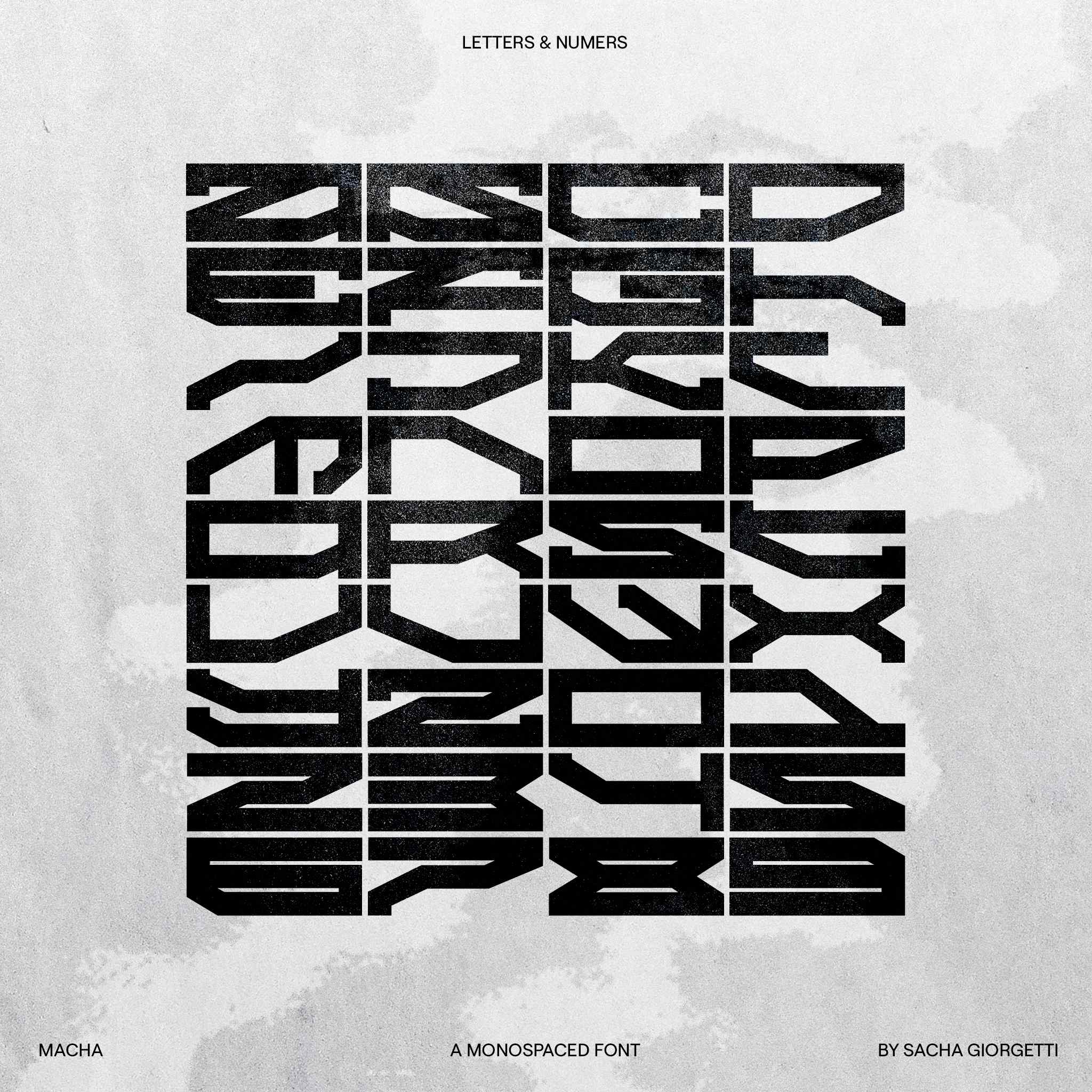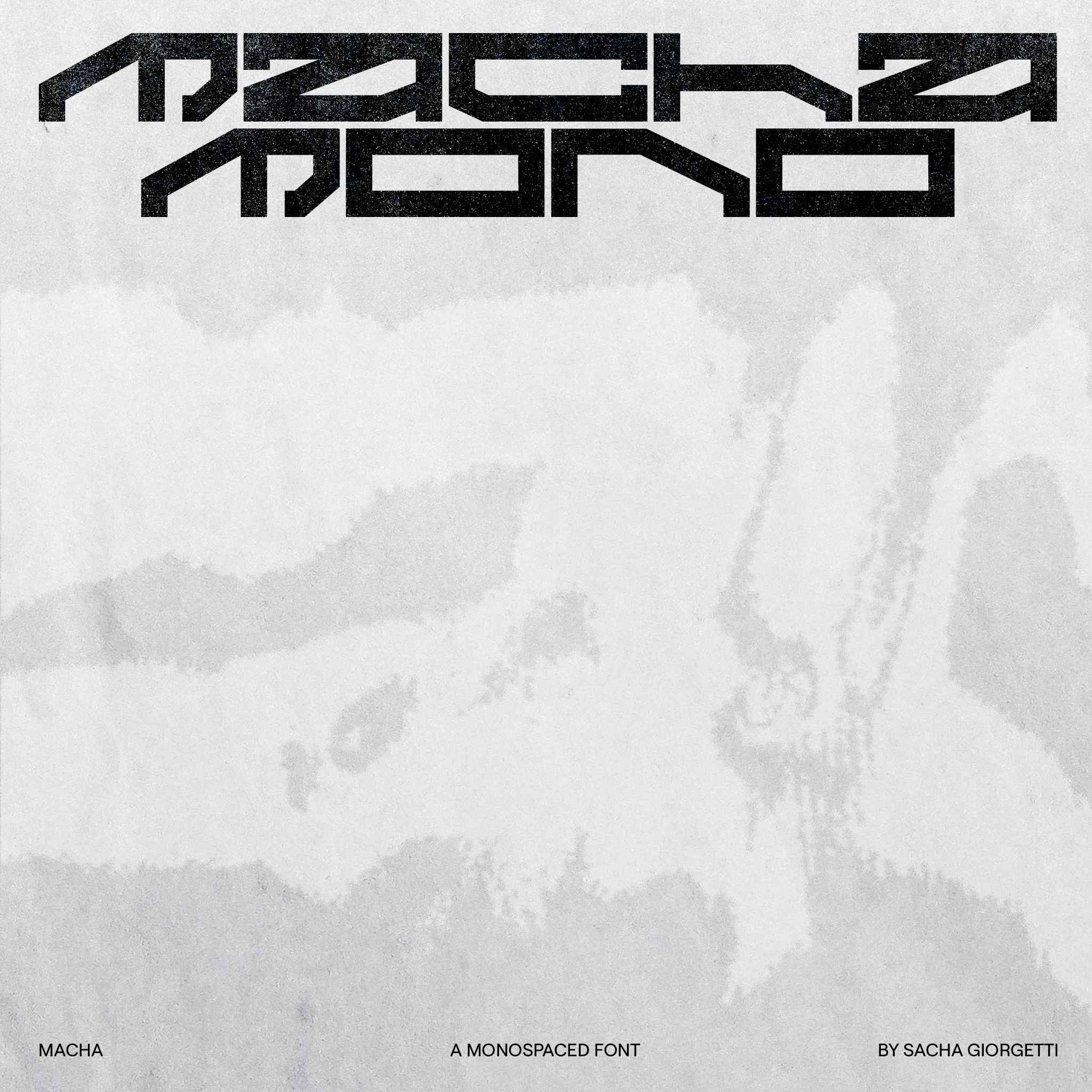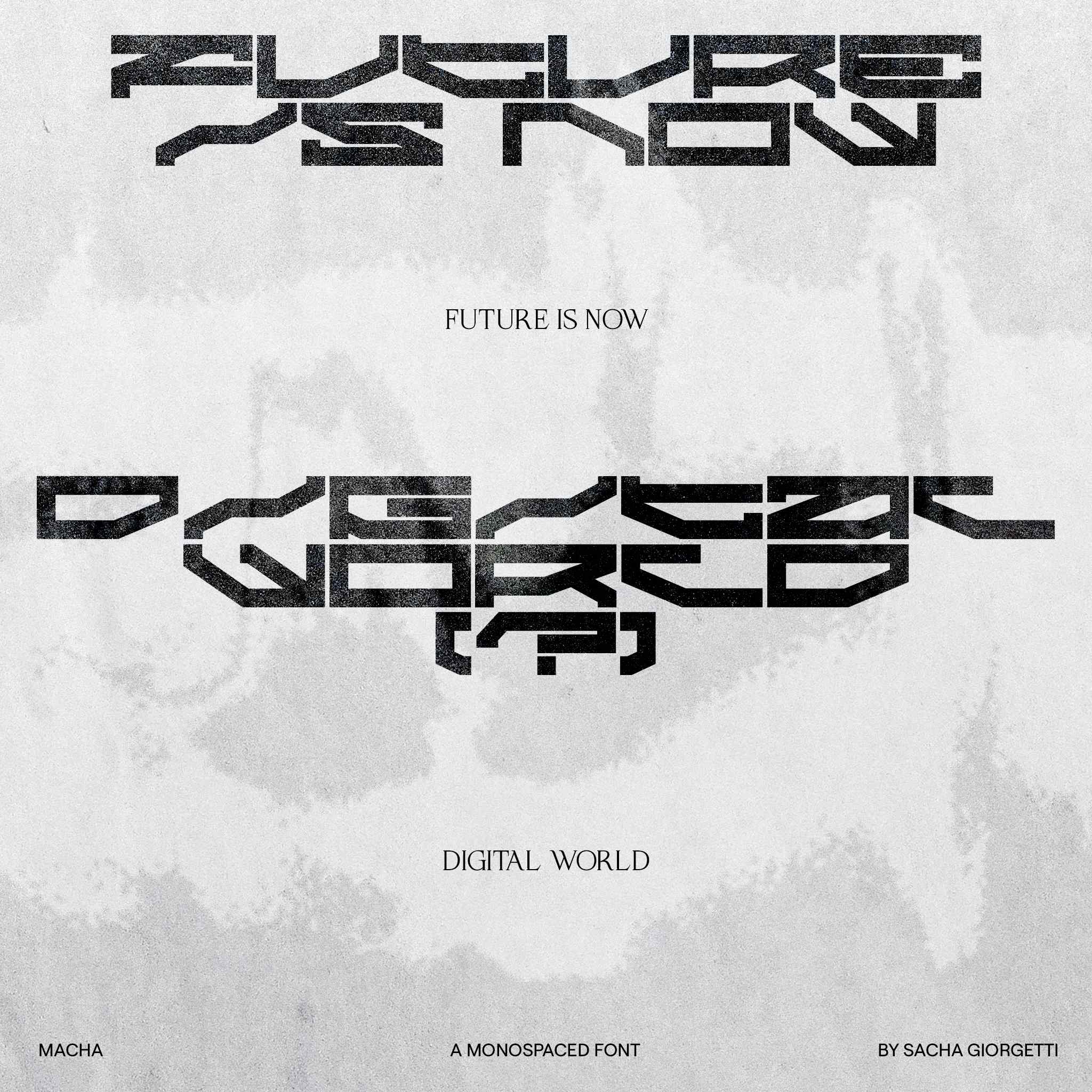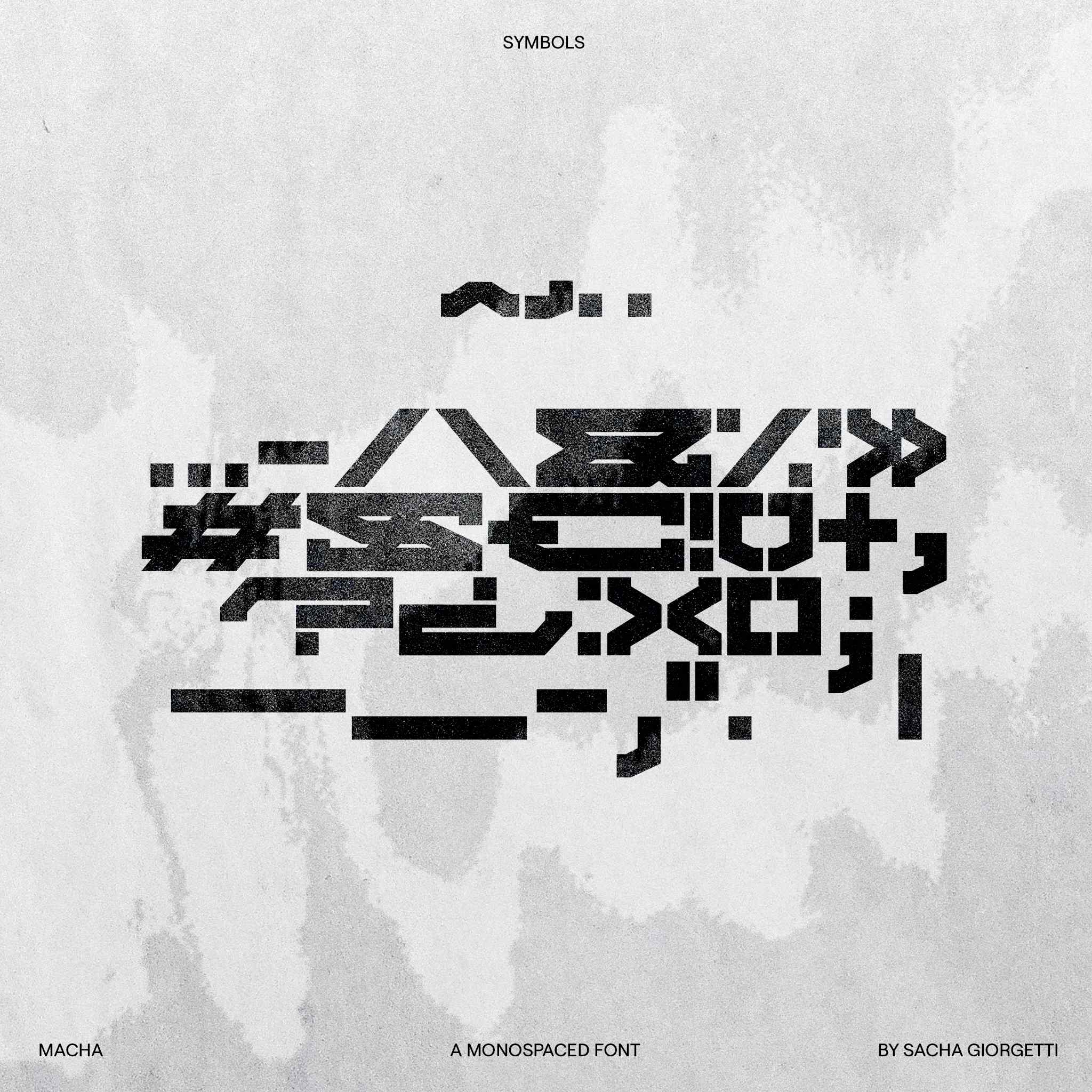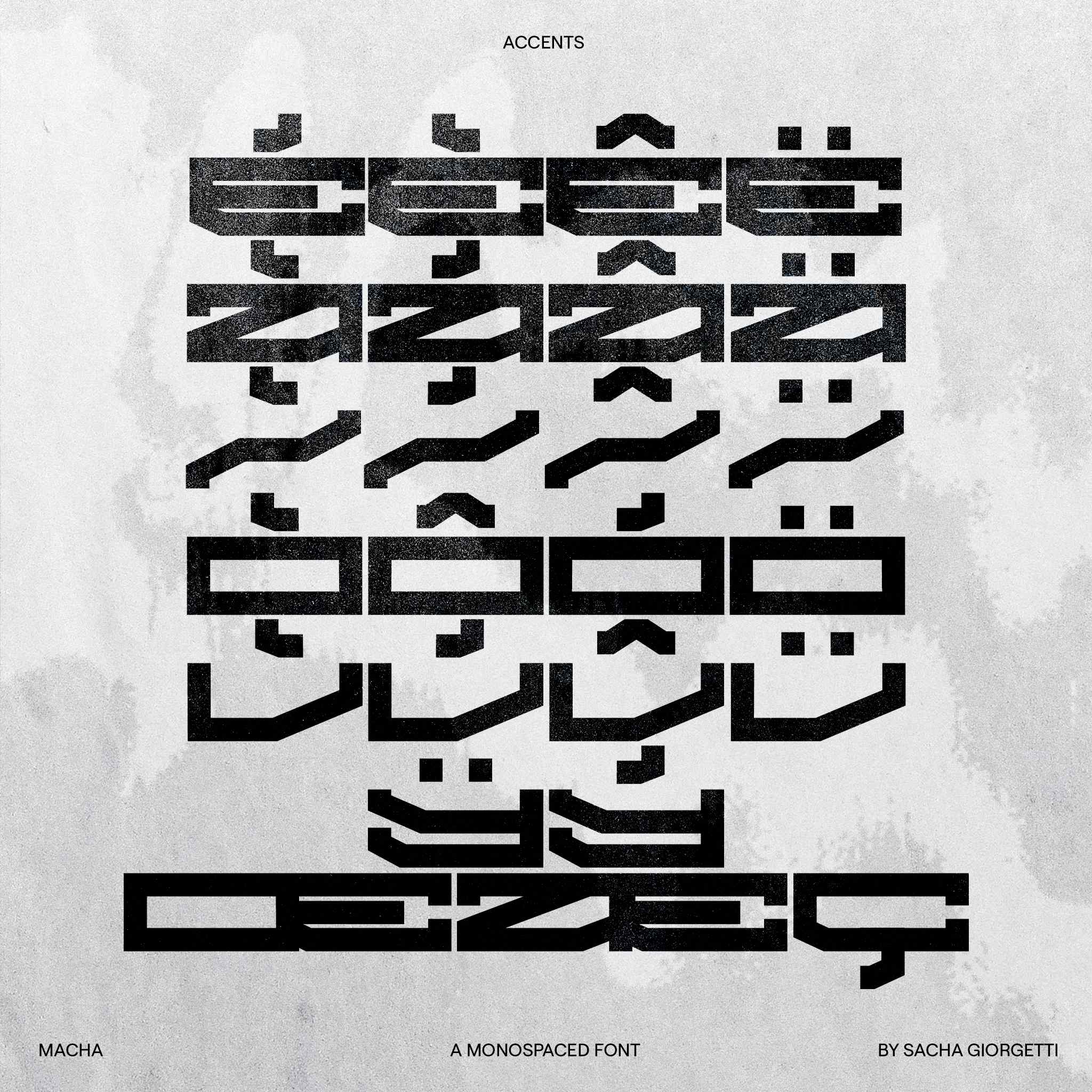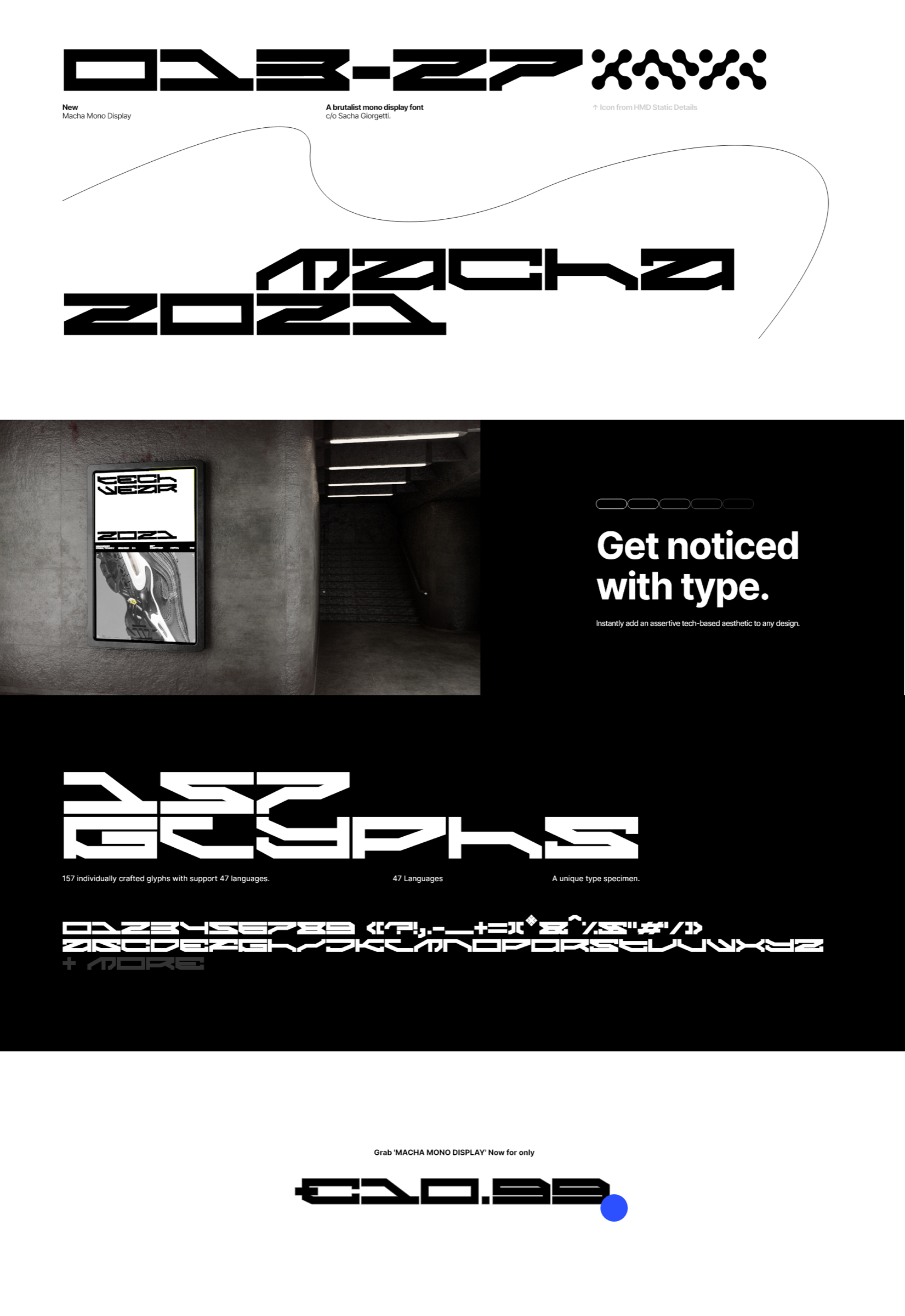
Macha Mono Display Font
A monospaced display face — even rhythm, technical bearing, and enough character to lead a layout rather than just annotate one.